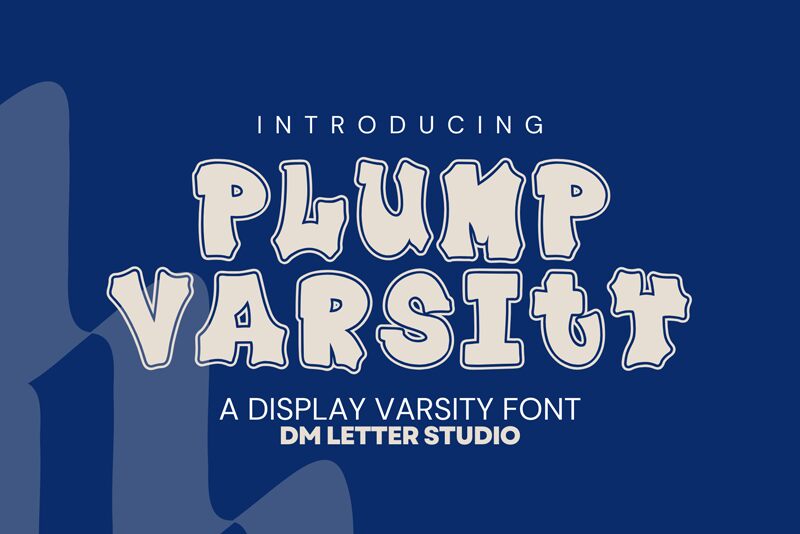
Plump Varsity font is the creation of DM Letter Studio - Dimas Prasetyo. This free font is a retro-inspired typeface with an energetic, whimsical touch. Its sporty and bold outlines create a visual impact characterized by an engaging and playful mood. This font maintains a youthful vibe that will pop in any project it finds itself in.
Plump Varsity would make a suitable choice for logotypes, headlines, and titles. Many more projects would also benefit from its flair such as branding, packaging, social media posts, greeting cards, stationery, presentations, digital content, stickers, and more.